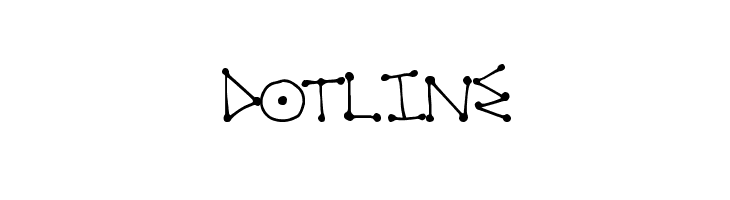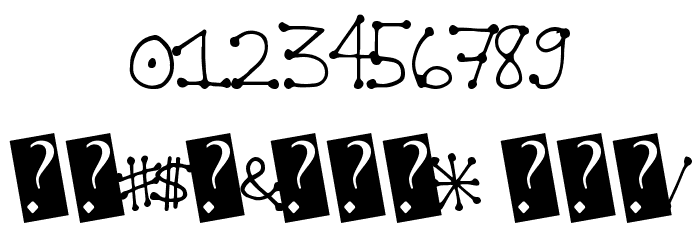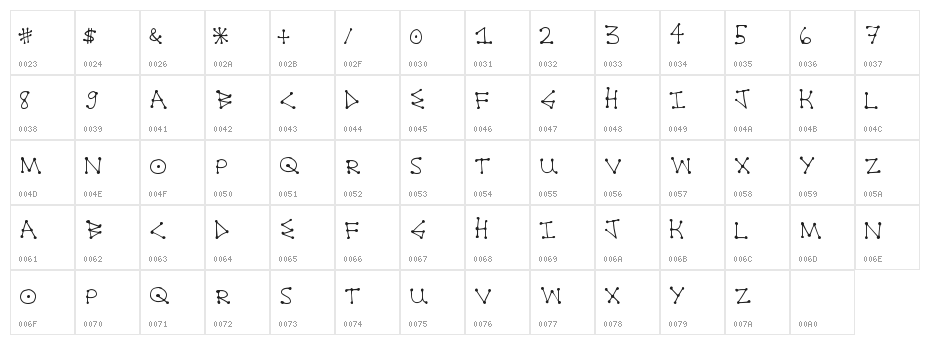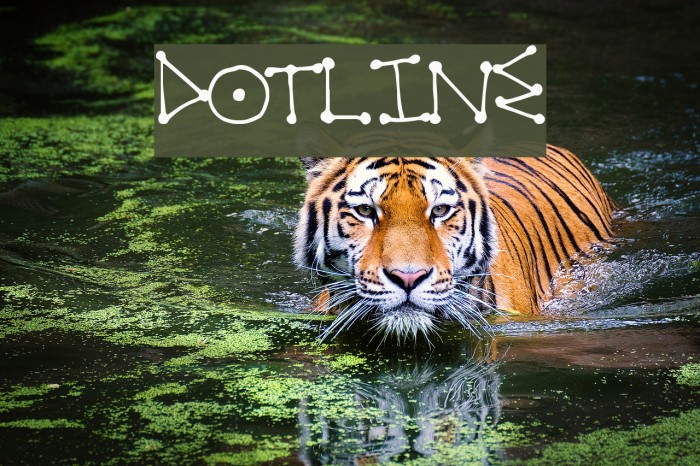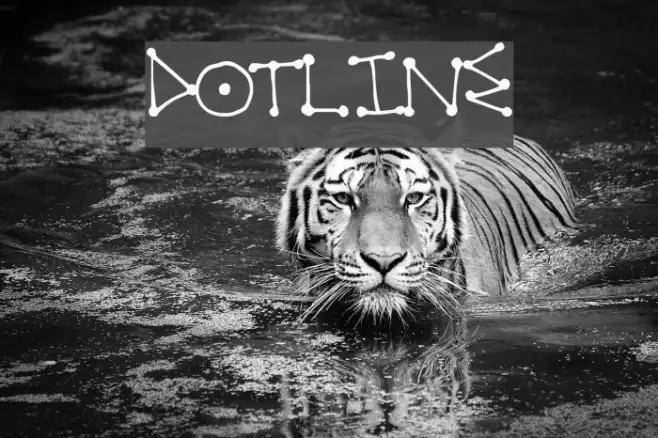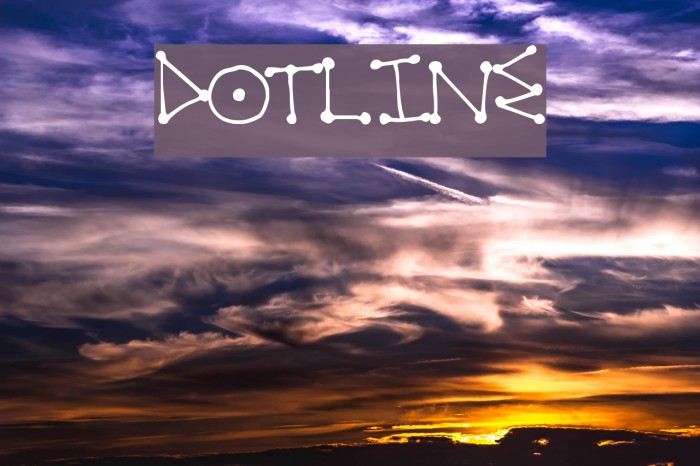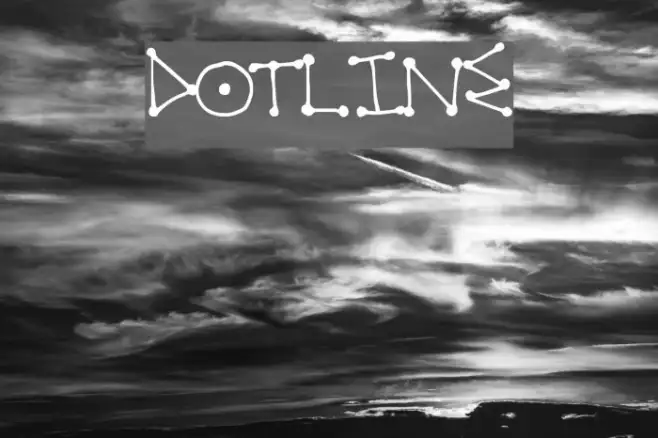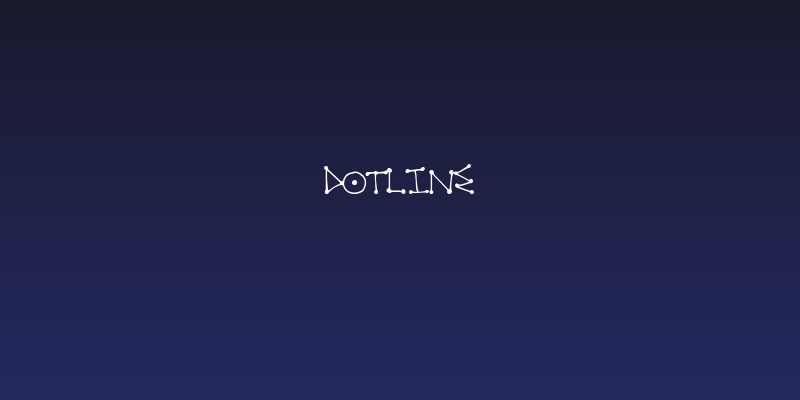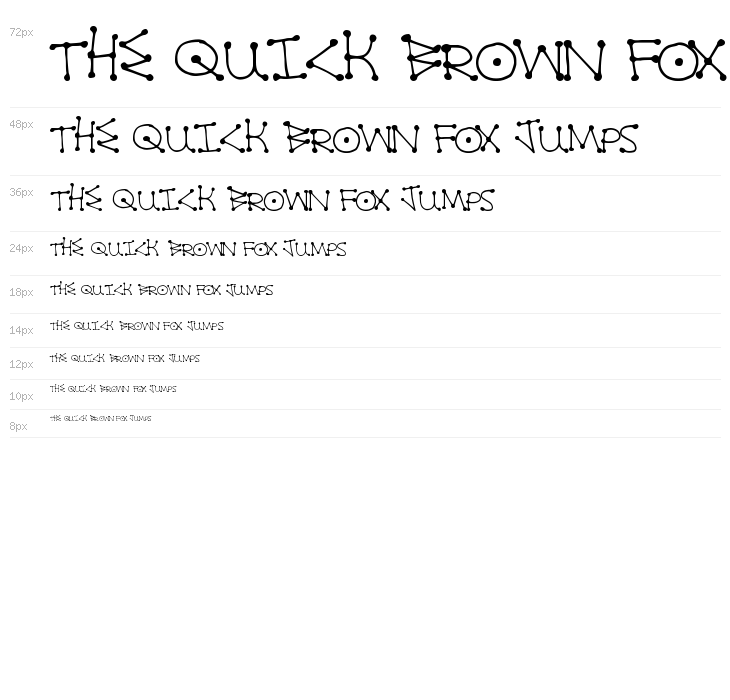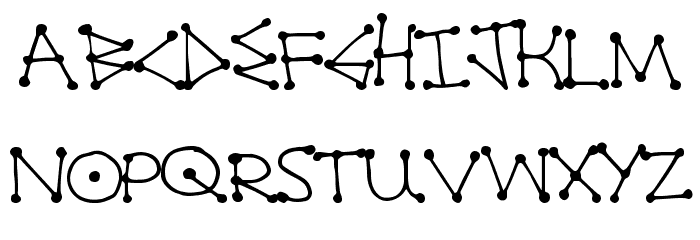
DotLine Font
DotLine Description
This unique and playful font features characters that resemble a series of dots connected by lines, creating a whimsical and abstract appearance. Each letter and number is constructed with a combination of straight and curved lines, giving it a hand-drawn and artistic feel. The font maintains a consistent stroke thickness throughout, with rounded terminals at the end of each line. The spacing between characters is relatively tight, enhancing its cohesive and interconnected look. This font is particularly suitable for creative projects that require a touch of fun and originality.